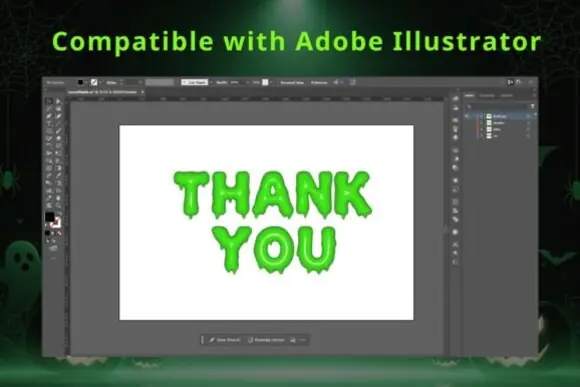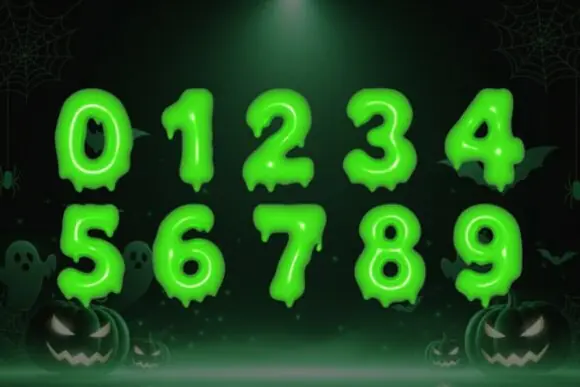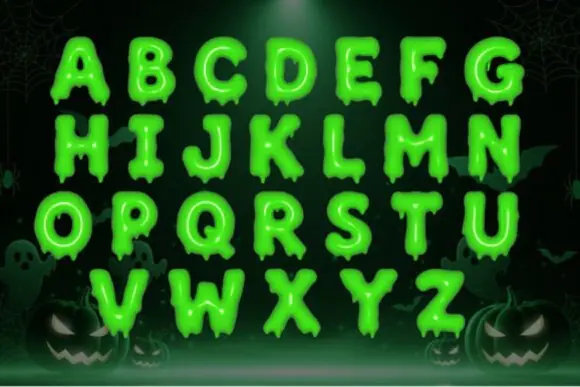
Slime Drip Halloween Font | Spooky Playful 3D Gooey Slime Font for Halloween Invitations, Posters, Packaging, Social Media & DIY Crafts
Create bold, creepy, and fun Halloween designs with Slime Drip Halloween Font, a spooky and playful 3D typeface featuring a gooey slime-drip effect. This font is perfect for projects that need a scary yet exciting Halloween look with strong visual impact.
Its glowing, dripping style adds a creepy but playful touch, making it ideal for Halloween party invitations, posters, packaging, social media graphics, DIY crafts, stickers, mugs, t-shirts, banners, printable signs, classroom decorations, and seasonal branding.
Slime Drip Halloween Font is a great choice for designers, crafters, small business owners, teachers, and digital sellers who want to create Halloween designs that feel bold, eye-catching, and full of spooky fun. The slime effect gives your typography a dramatic haunted feel while still keeping it playful and creative.
• Halloween party invitations
• Spooky posters and banners
• Product packaging and labels
• DIY Halloween crafts
• T-shirt and sweatshirt designs
• Mug and sticker designs
• Printable wall art
• Classroom Halloween decorations
• Sublimation projects
• Cricut and Silhouette designs
• Haunted house graphics
• Seasonal branding
• Spooky playful 3D typeface
• Gooey slime dripping effect
• Bold, scary, and eye-catching look
• Great for Halloween invitations, posters, and packaging
• Perfect for both digital and print projects
• Adds creepy fun energy to seasonal designs
Slime Drip Halloween Font is perfect for bringing your Halloween projects to life with a bold, gooey, glowing, and unforgettable spooky style.